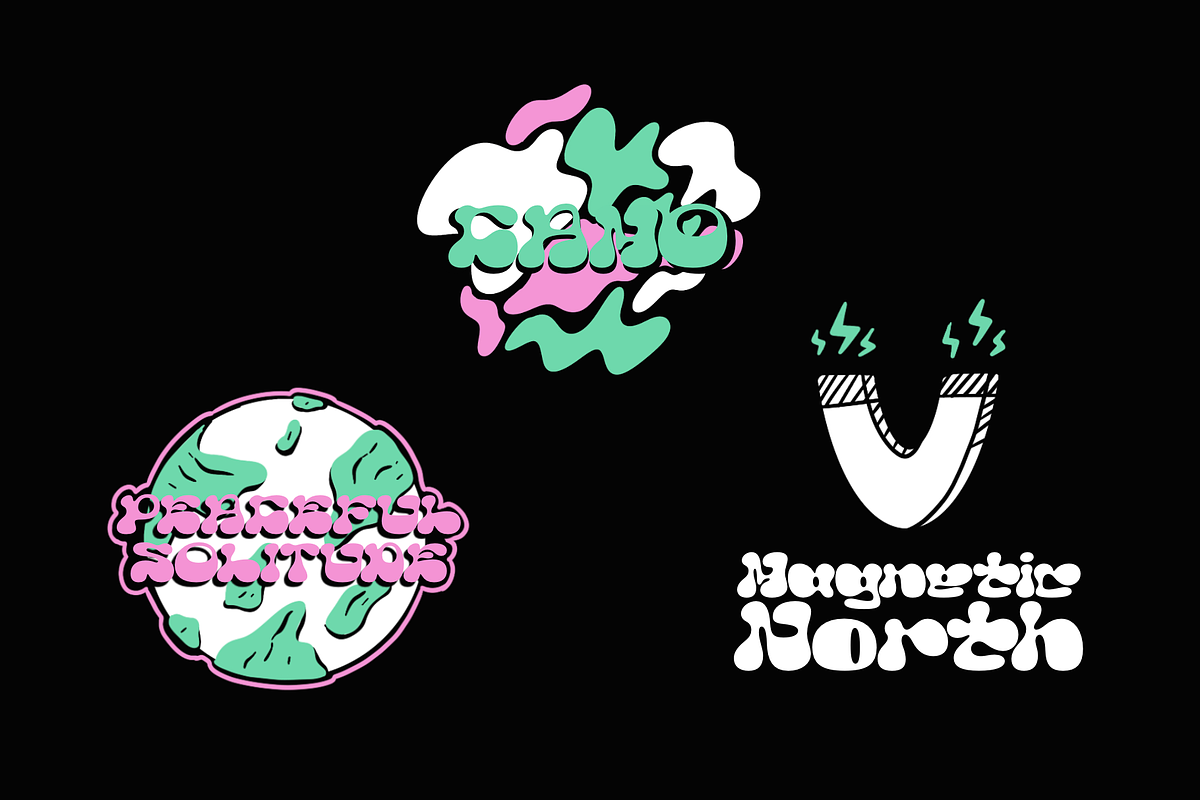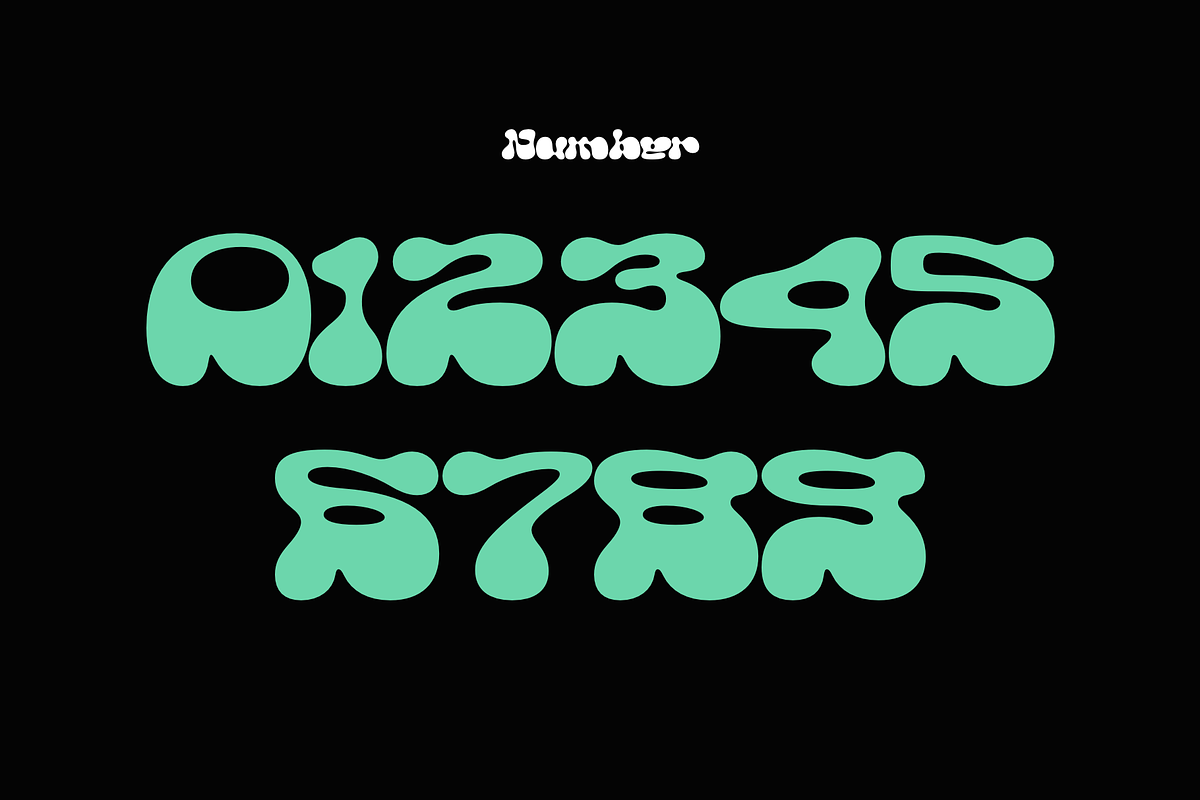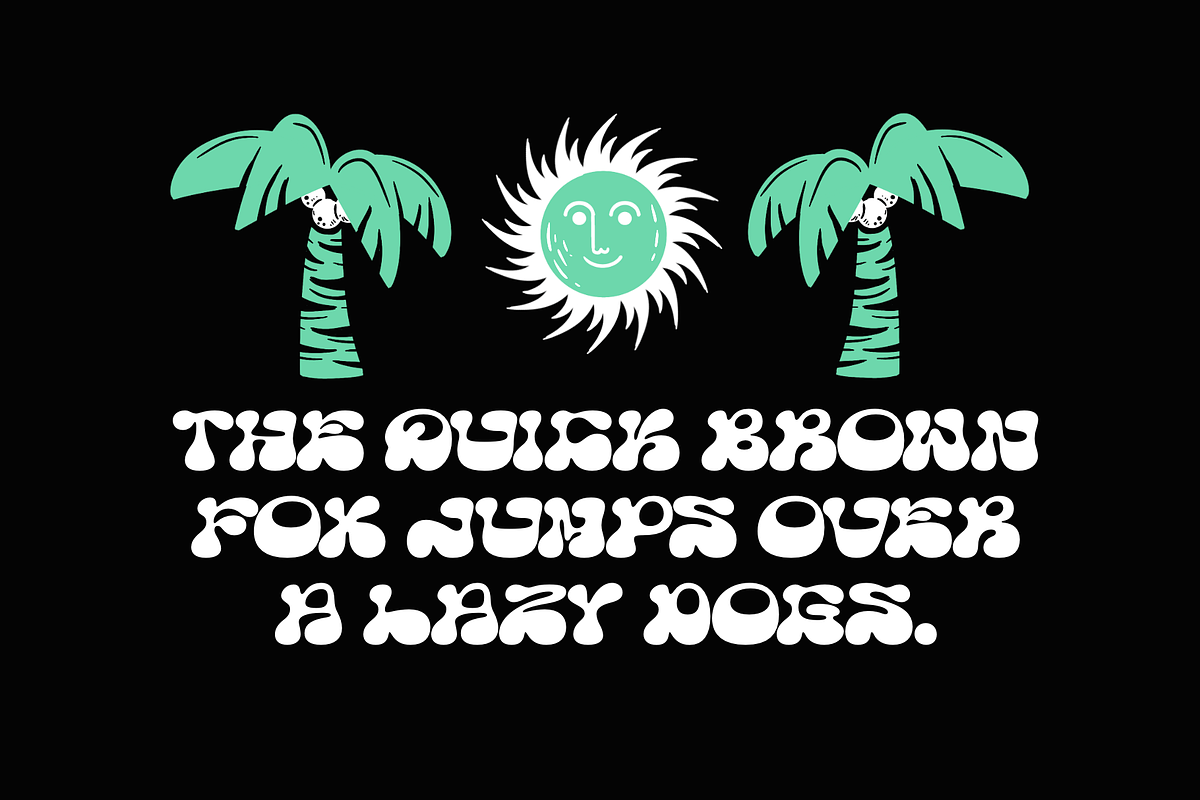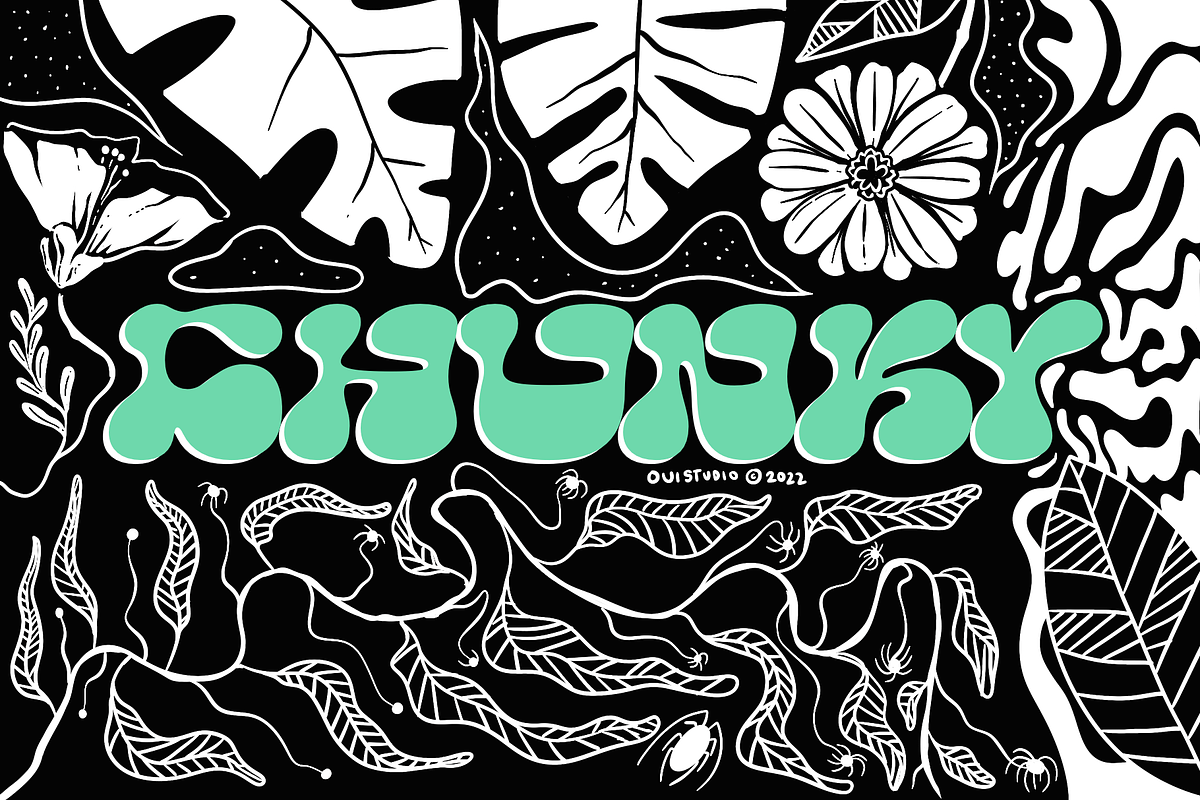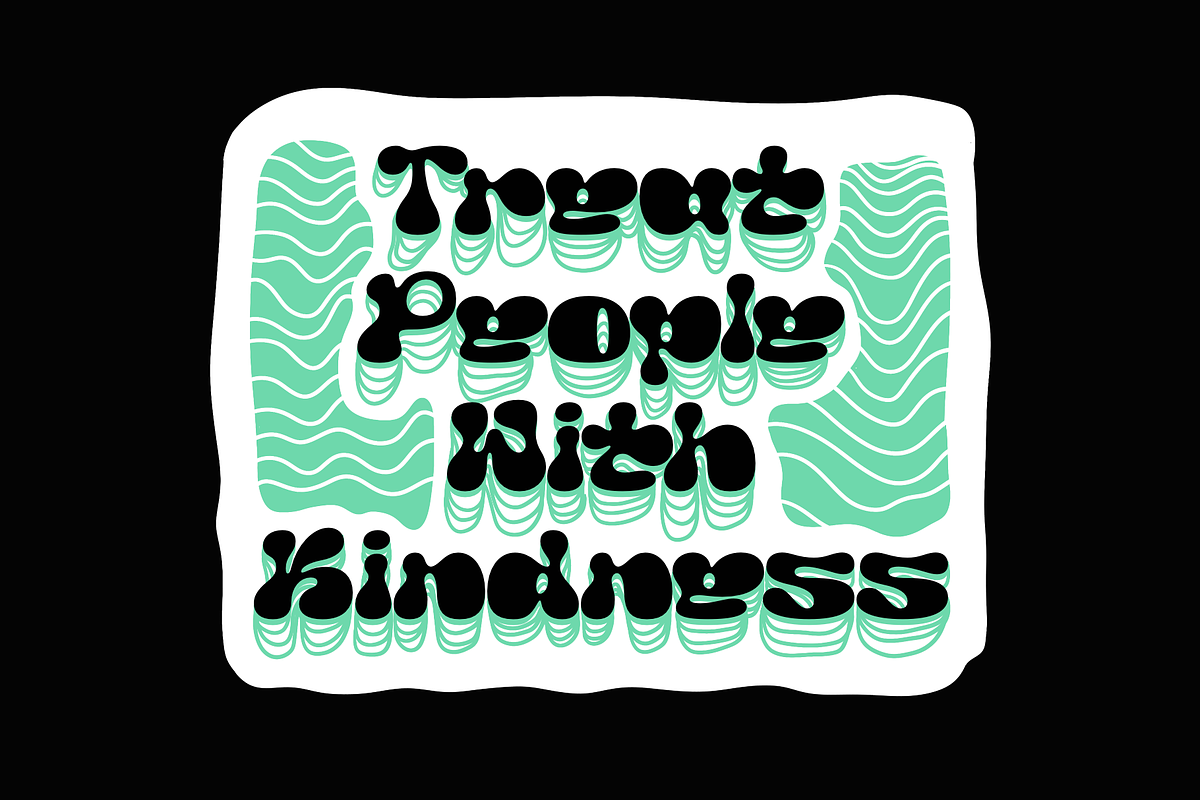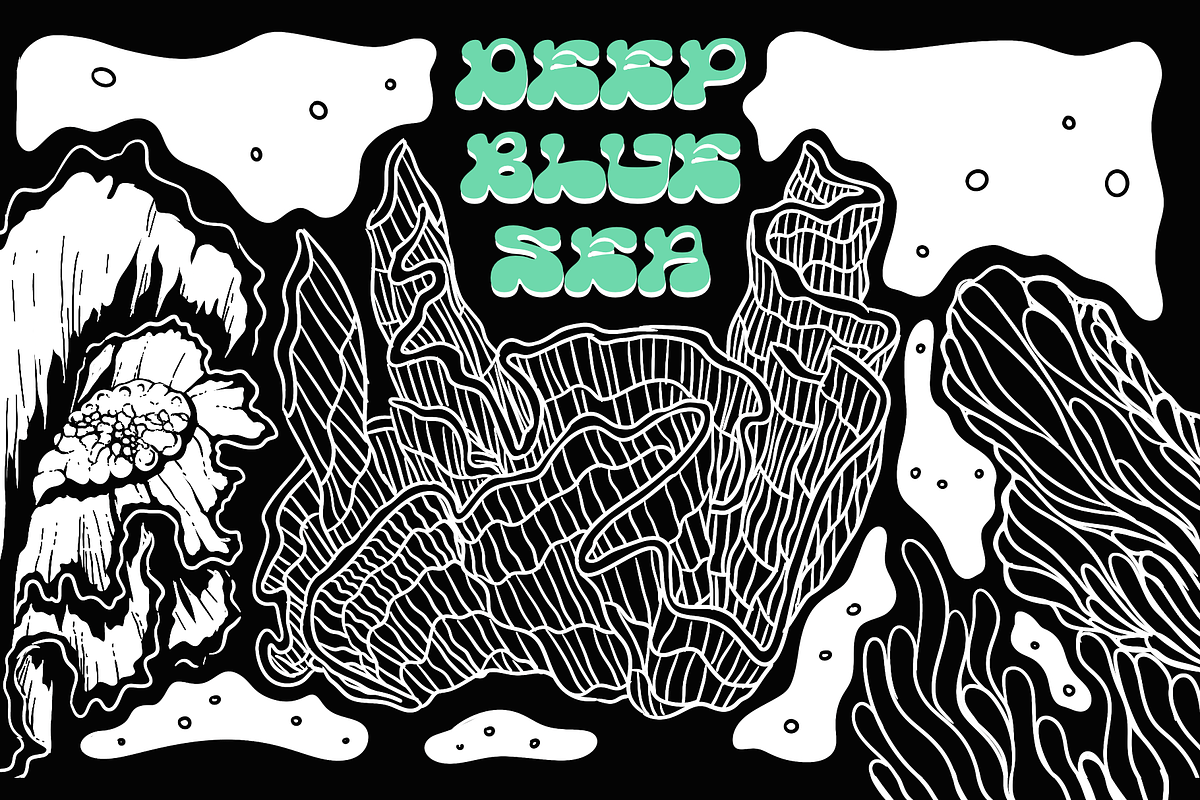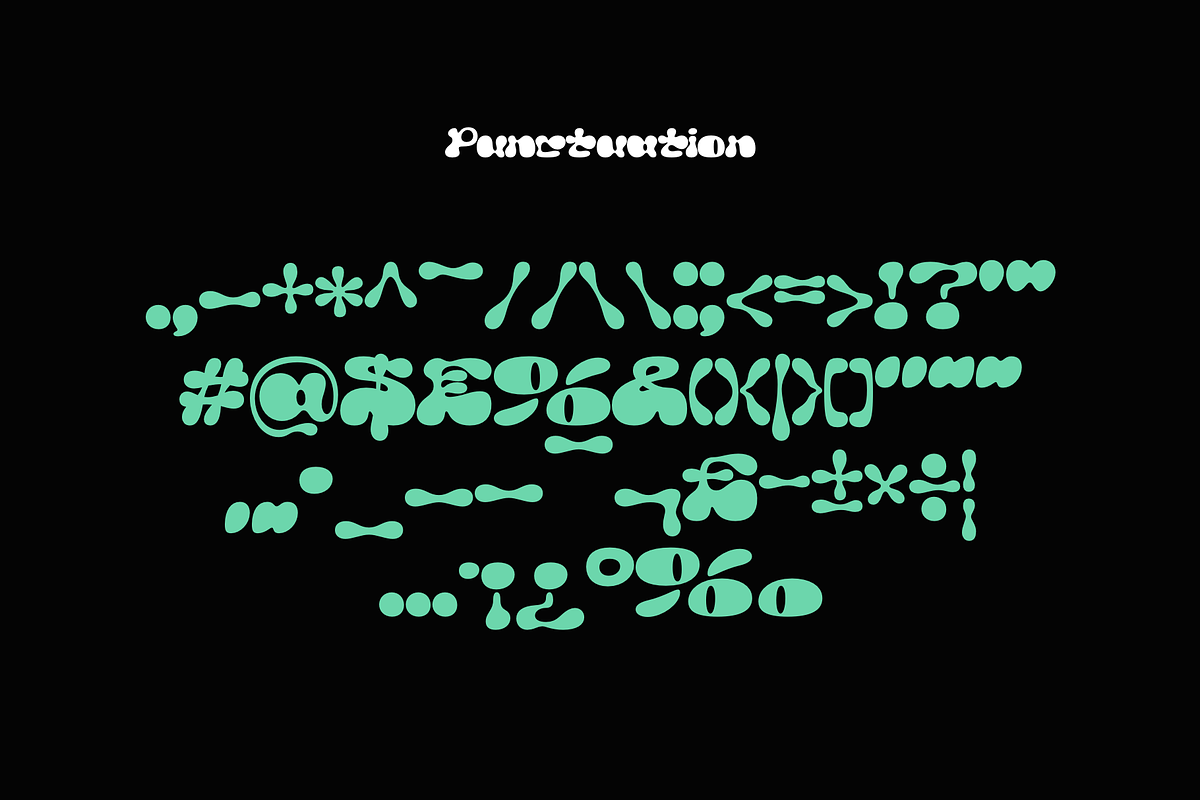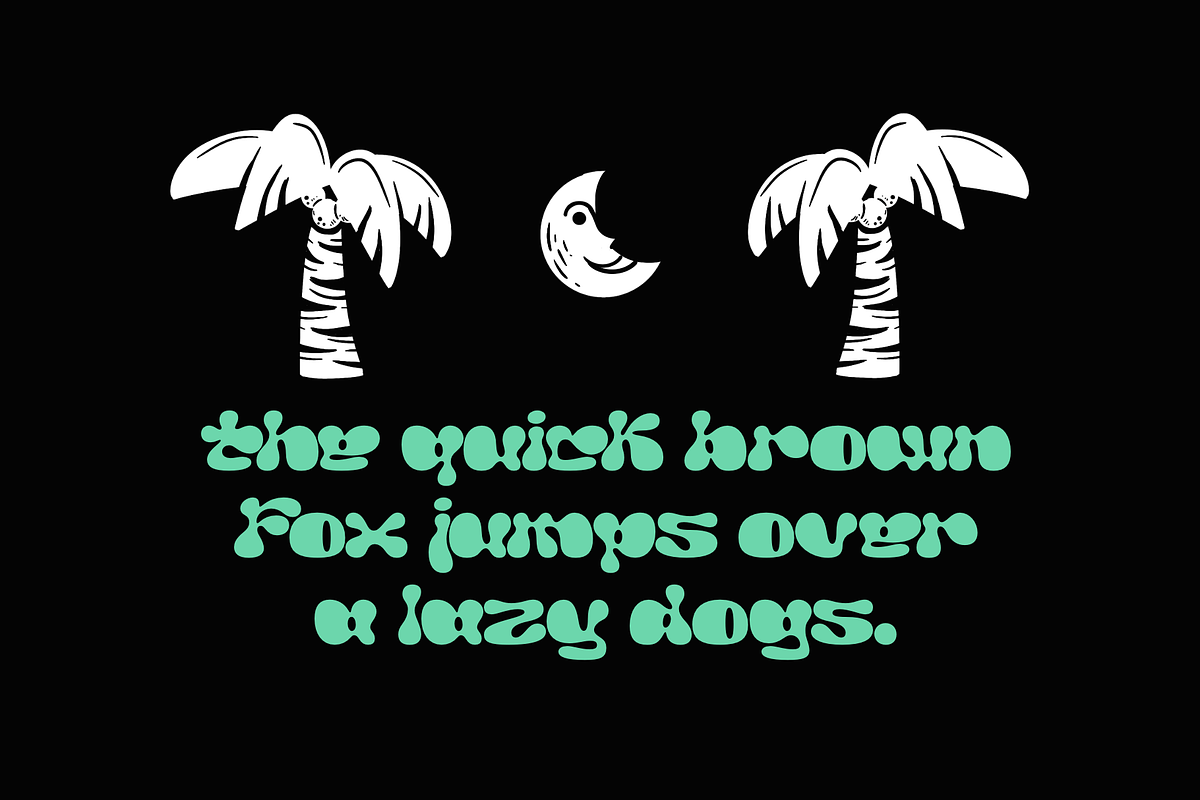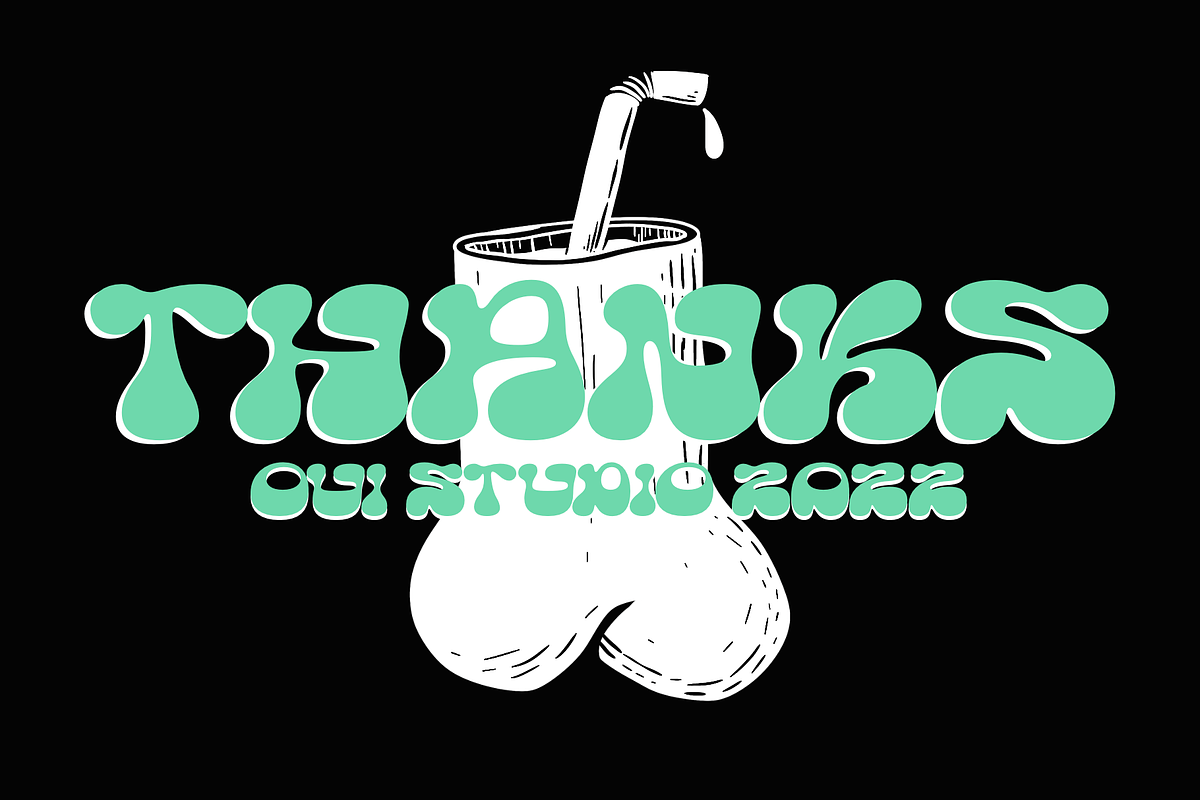
Chunky Hippie Display Font
Hello, friends! The 'Chunky' font is coming, a bulky hippie display font. Chunky is very inspired by retro 80's hippie vibe. It's perfect for branding, logo Band, packaging, header, t-shirt design, poster, band, music, album, artwork, etc. Chunky has a unique bulkiness in every glyph. Thank you!